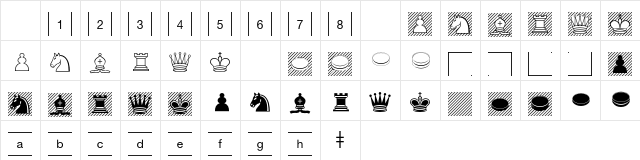
Linotype Game Pi Chess Draughts Free Font
Linotype Game Pi Chess Draughts
Style: Chess Draughts
Design Context for Linotype Game Pi
Linotype Game Pi is a composed and adaptable typeface that performs quietly and consistently across a wide range of design contexts.